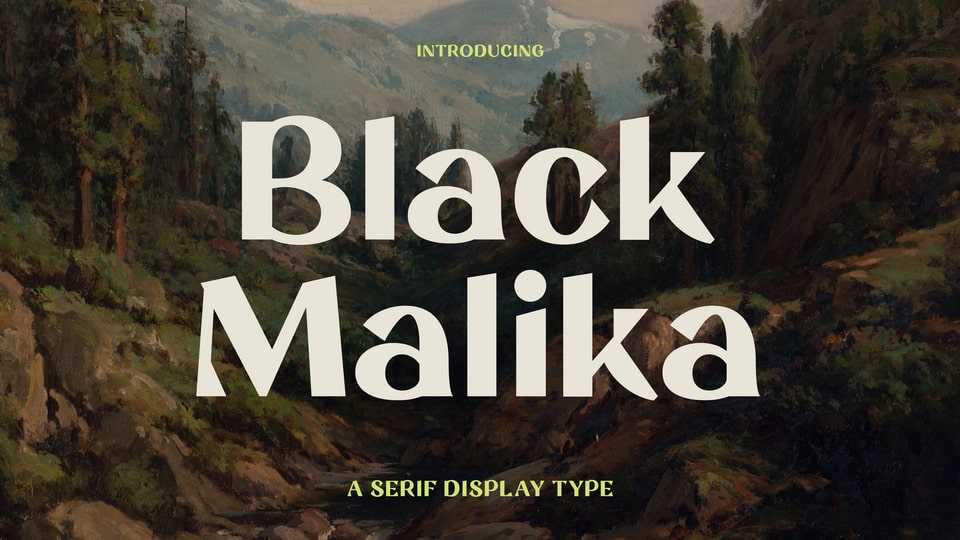
Download Black Malika font, a sleek serif display typeface tailored for impactful visuals. Perfect for logos, web headers, packaging, and more, its versatility shines in large-scale designs.
Designer: Fredella Agatha